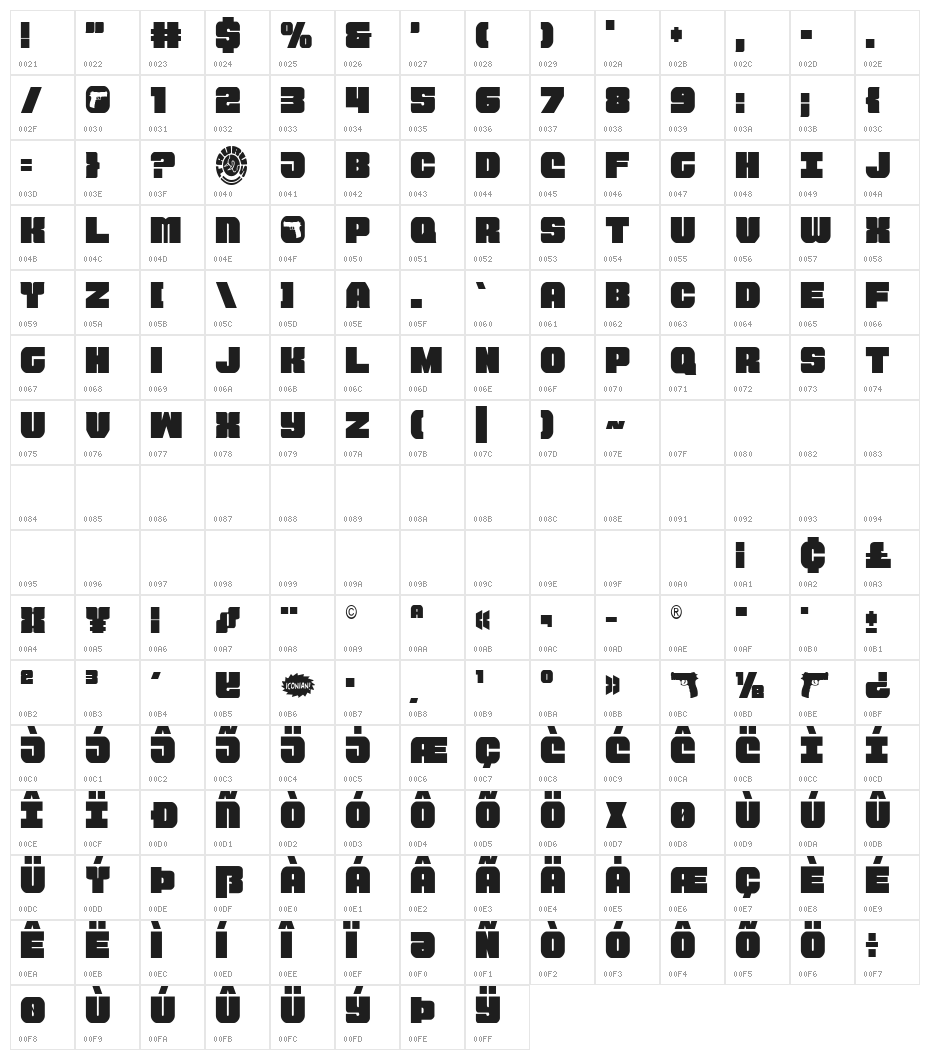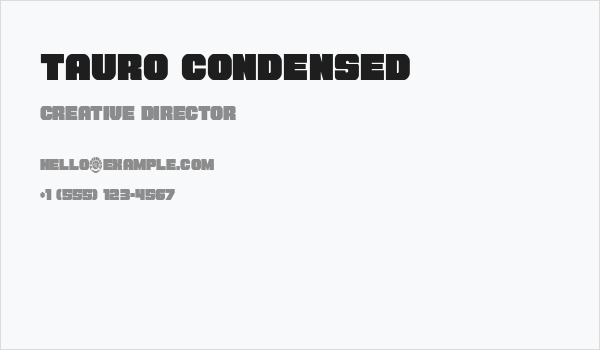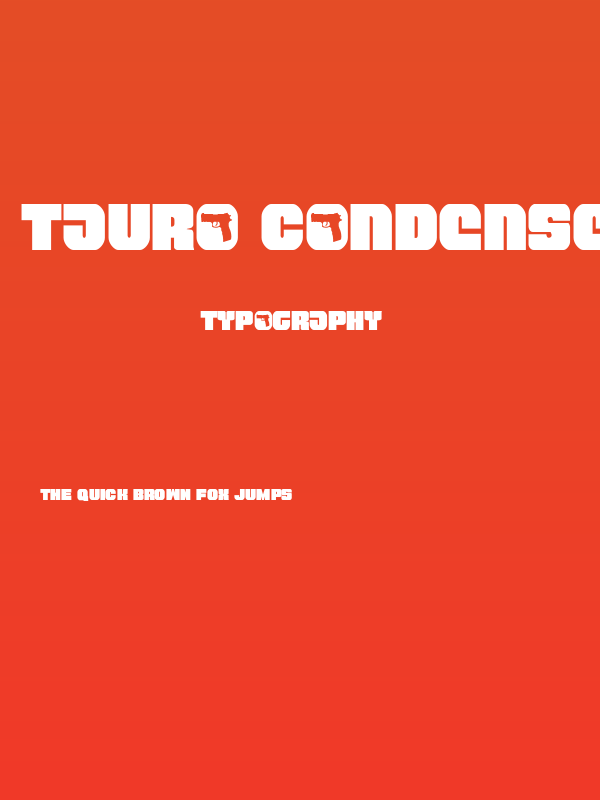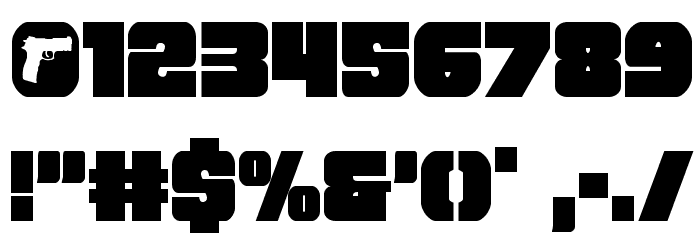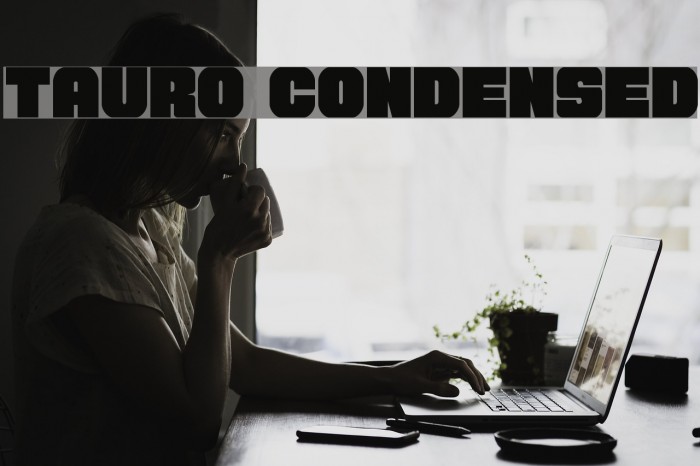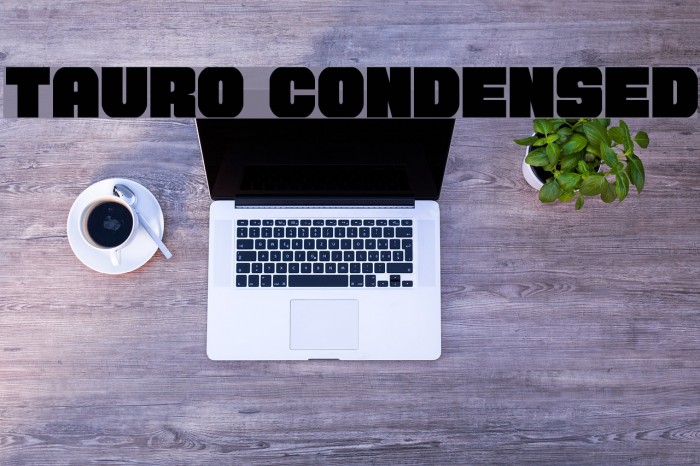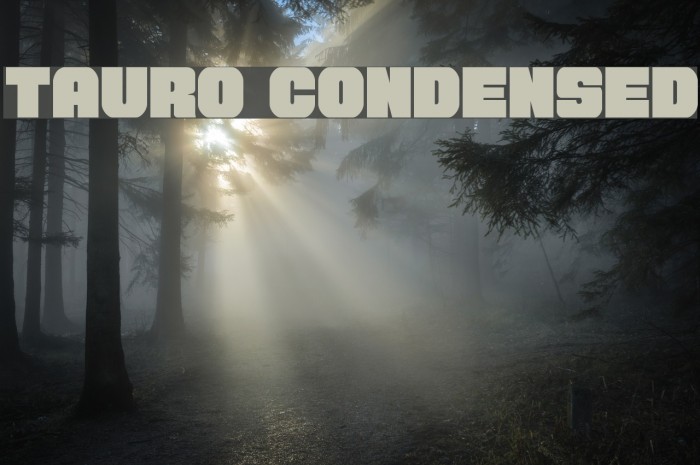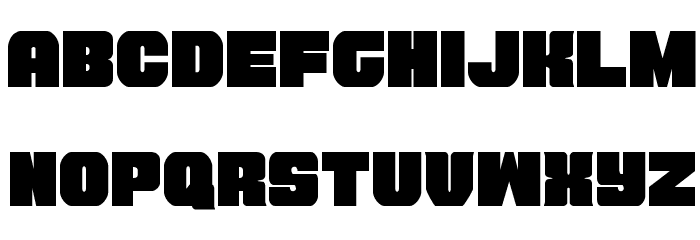
Tauro Condensed Font
Tauro Condensed Description
This font features a bold and robust design with a distinctly condensed style. The characters are blocky and geometric, with a strong presence that commands attention. The uppercase letters are uniform in height, creating a cohesive look across the alphabet. The numbers and special characters maintain the same boldness, ensuring consistency throughout. The font's heavy weight and condensed width make it ideal for impactful headlines and designs that require a strong visual statement.
| Proposed Projects | Ideal for posters, logos, and branding materials that require a strong, impactful presence. |